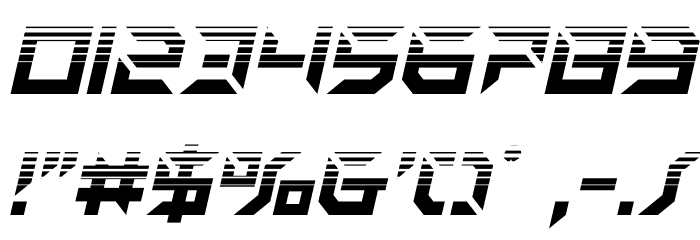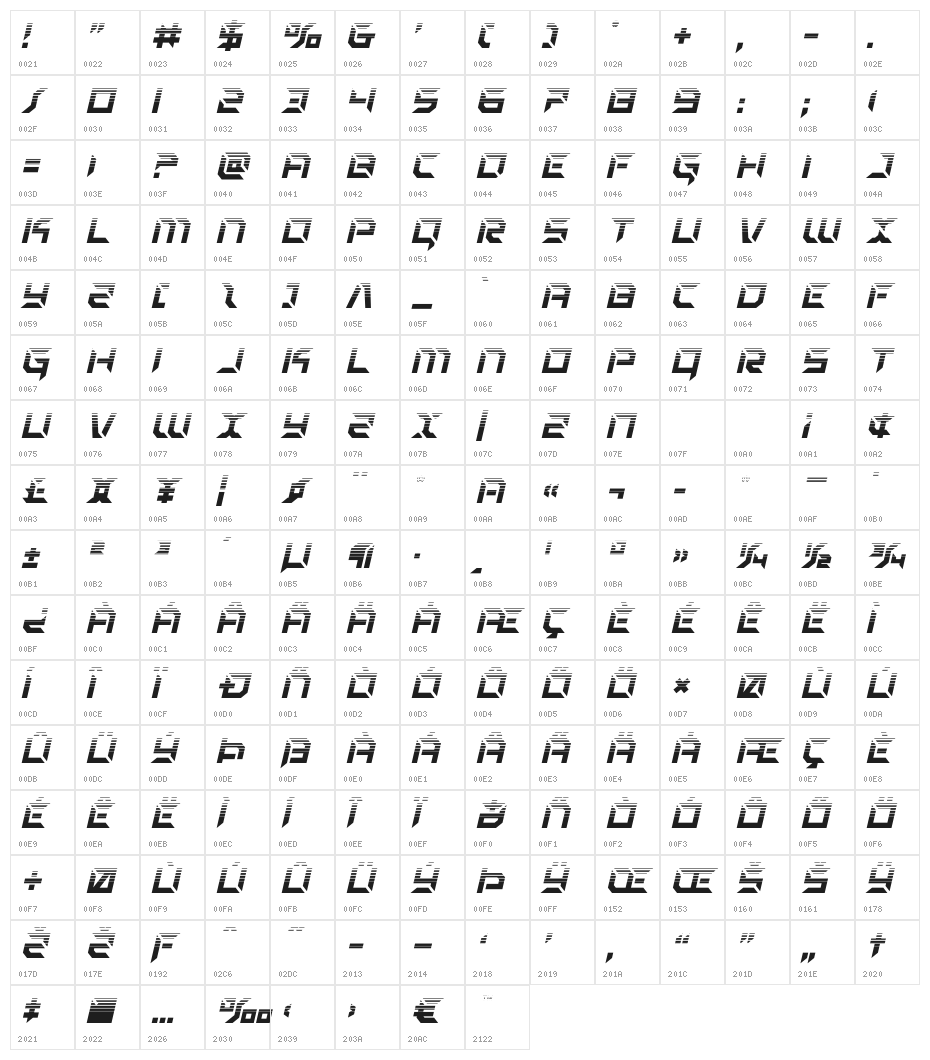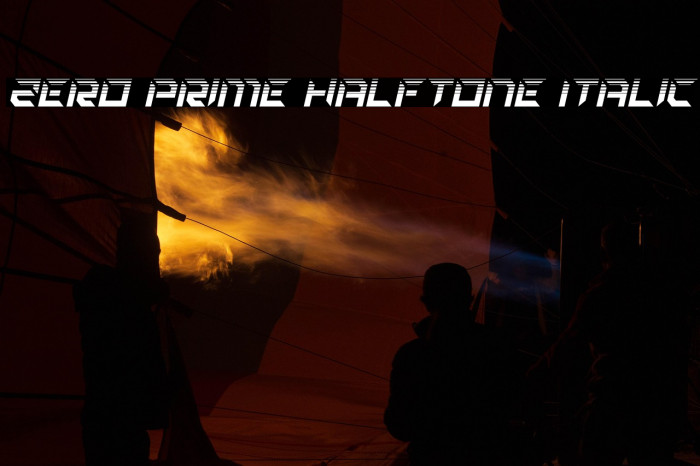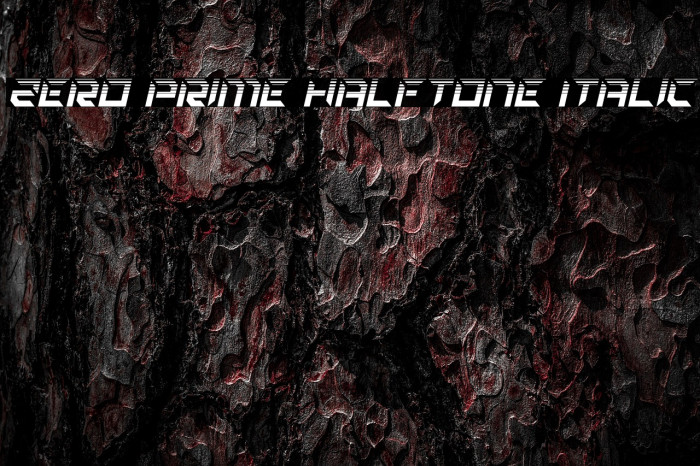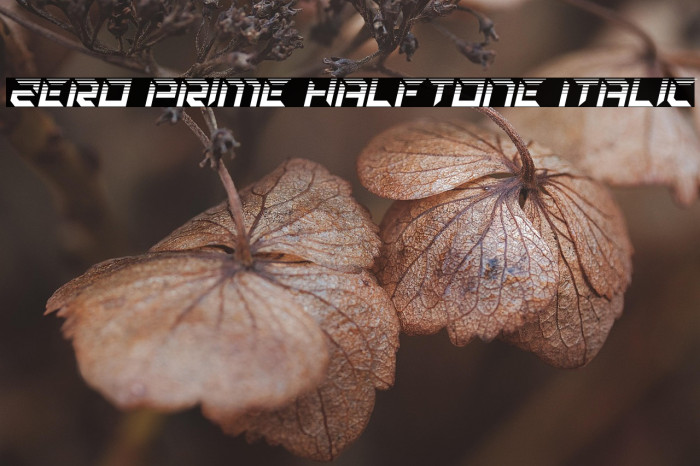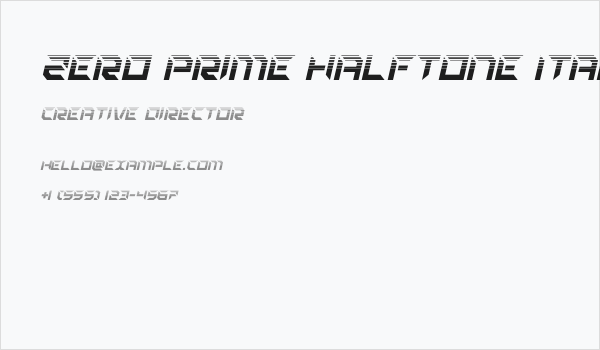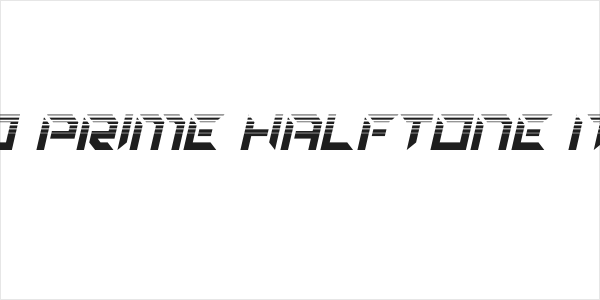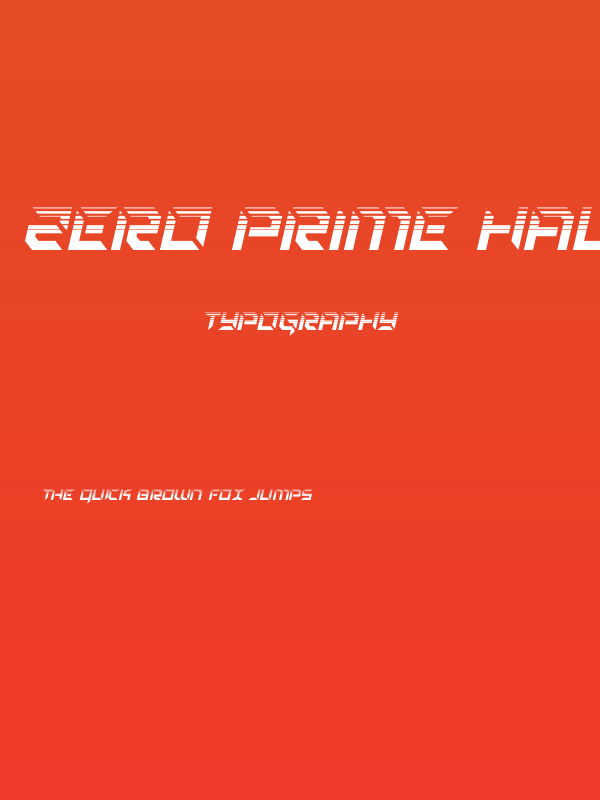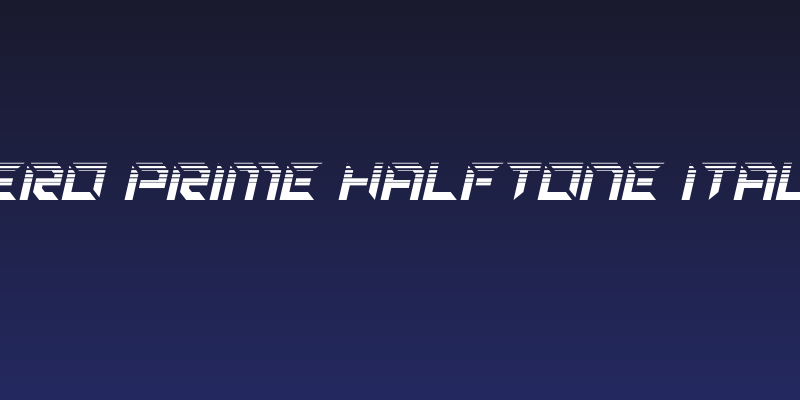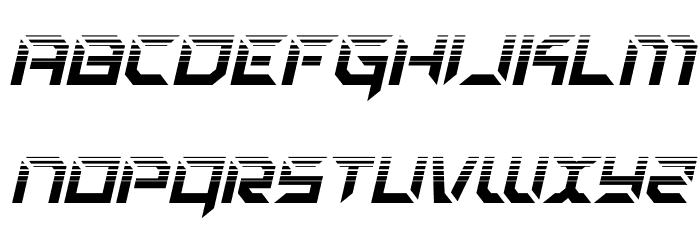
Zero Prime Halftone Italic Font
Zero Prime Halftone Italic Description
This font features a futuristic and dynamic design, characterized by its bold, angular shapes and distinctive halftone pattern. The italicized style adds a sense of motion and energy, making it stand out. The uppercase and lowercase letters share a consistent geometric structure, with sharp edges and a unique striped effect that gives a sense of depth and dimension. The numerals and special characters maintain the same aesthetic, ensuring a cohesive look across all text elements. This font is ideal for projects that require a modern and edgy appearance.
| Proposed Projects | Perfect for sci-fi themed designs, video game graphics, tech branding, and modern posters. |